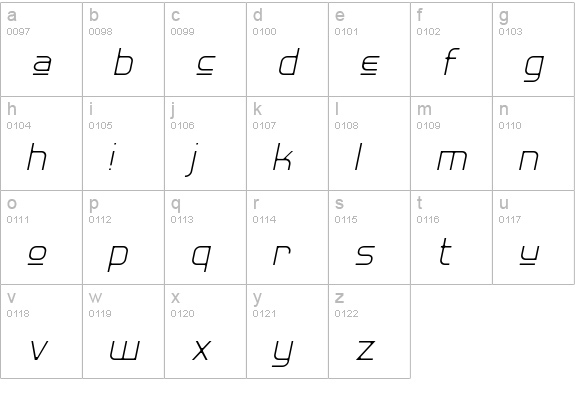
Hall Fetica Upper is a modern and sophisticated display font that exudes elegance and charm. With its clean lines and stylish curves, this font is perfect for creating eye-catching headlines, titles, and logos. The uppercase letters are bold and striking, making a strong statement in any design project. The best part about Hall Fetica Upper font is that it is completely free to download at FontsMarket.com. This means you can easily access this beautiful font for your personal and commercial projects without any cost. Don't miss out on the opportunity to elevate your designs with the timeless appeal of Hall Fetica Upper font.